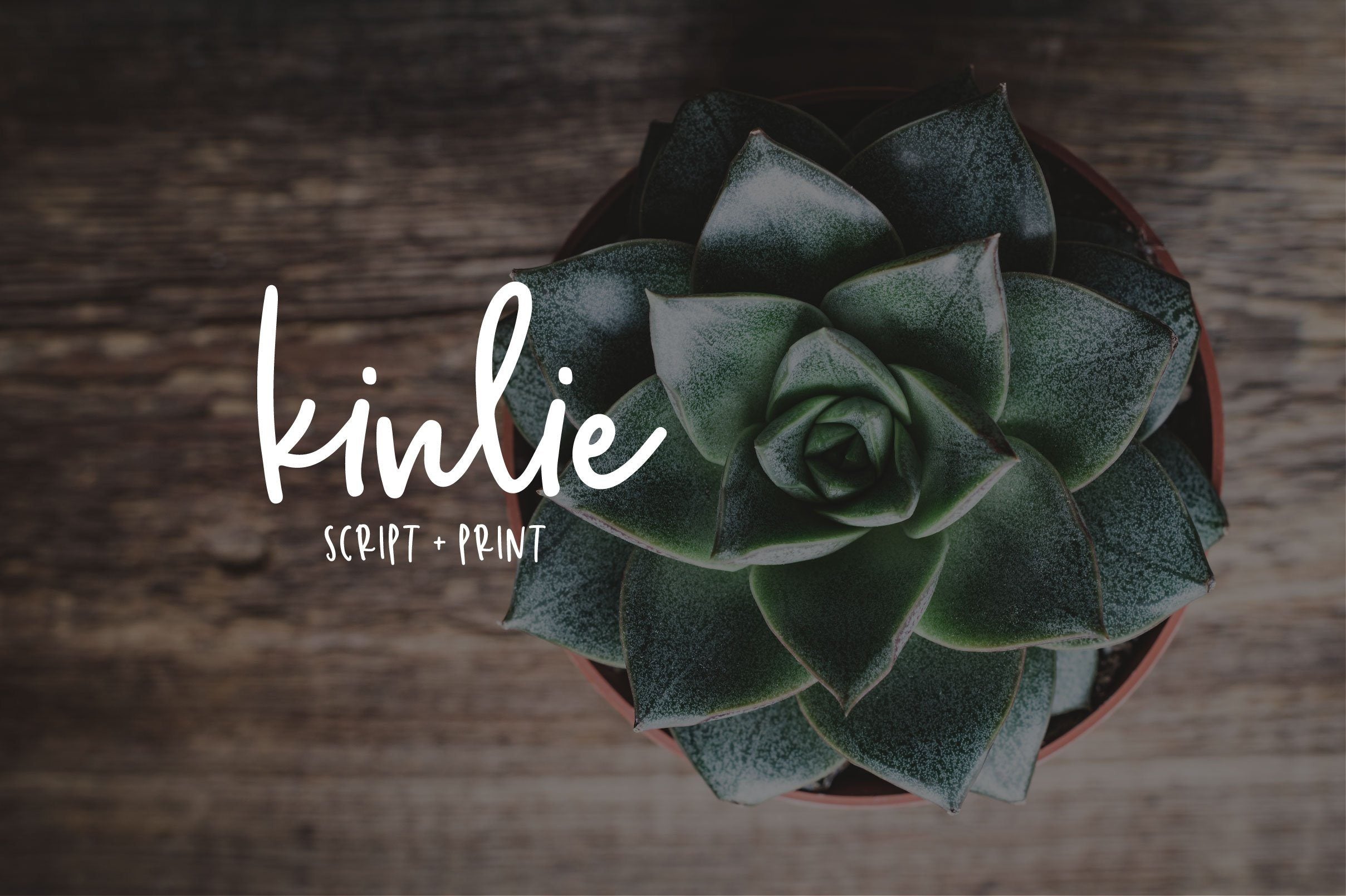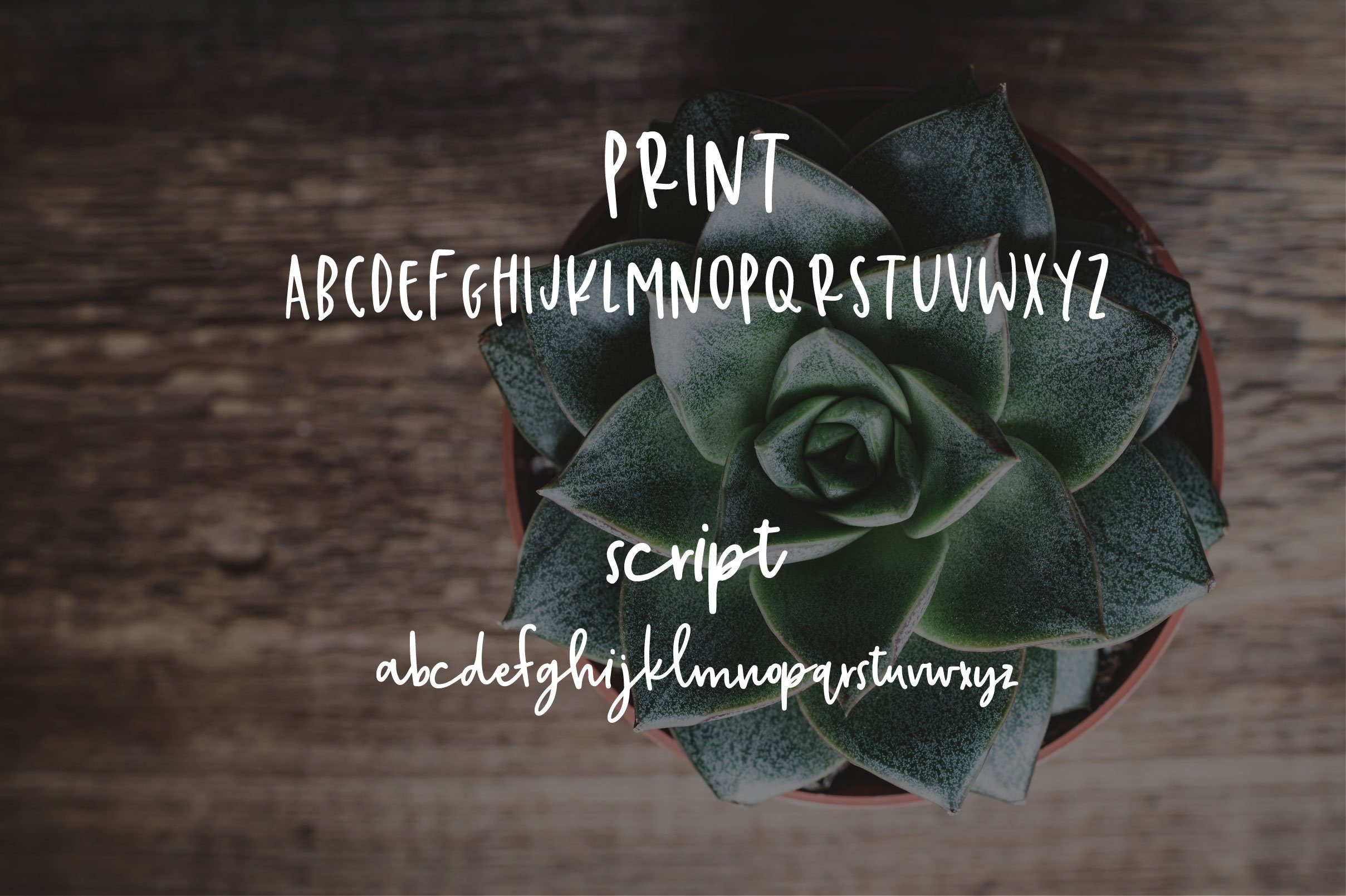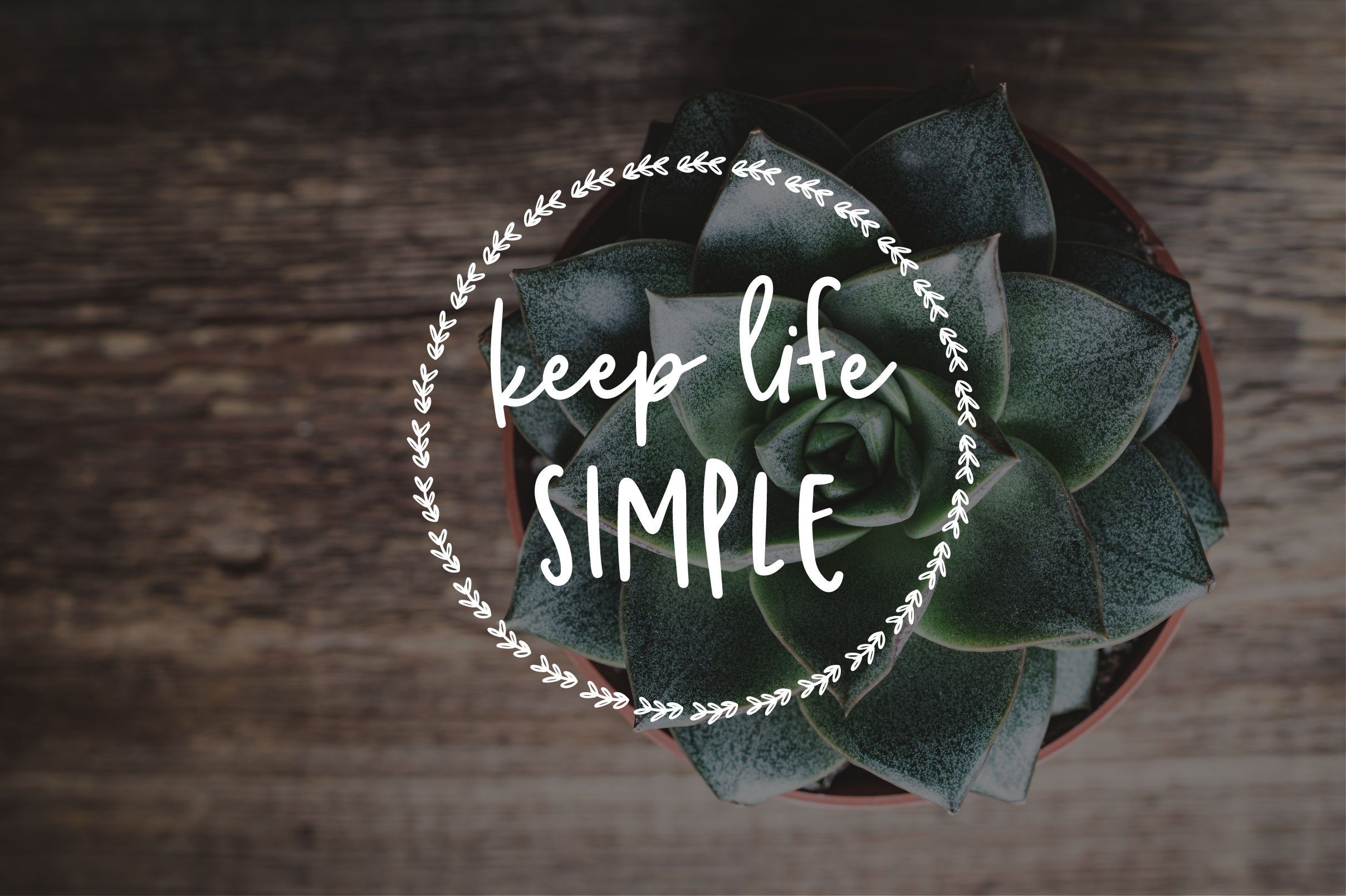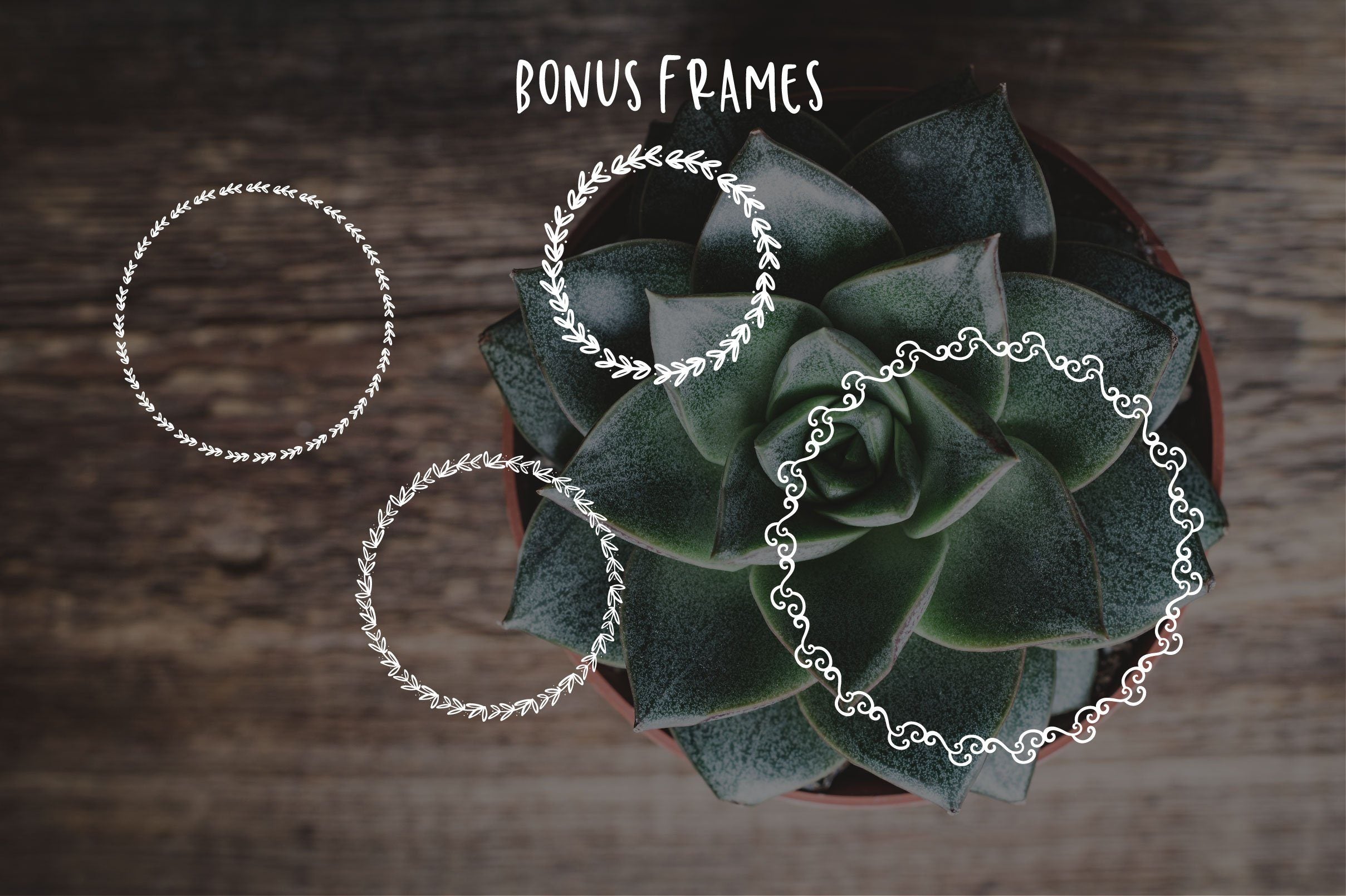
HomeScript FontsKinlie Script Fonts Kinlie FacebookXPinterestWhatsApp 1 of 4 ... ... ... ... About Kinlie Kinlie is a simple script with a relaxed vibe. The uppercase letters create their own style as well when used together. Includes 4 hand drawn frames to accent your designs! DOWNLOAD NOW People also explored Cruz Script Ballpoint Pro Campus Holiday Font Stevanie Font Historis Script Font Higmospher Font Silence Font Andershon Magnolia Font Razor Font Home Plants Font 228 0 TagsKinlie Previous articleThe So Fontsy Free Font: So Fontsy ExclusiveNext articleOaker LEAVE A REPLY Cancel reply Comment: Please enter your comment! Name:* Please enter your name here Email:* You have entered an incorrect email address! Please enter your email address here Website: Save my name, email, and website in this browser for the next time I comment. Personal Use Free Gunplay Personal Use Free Read more about this font Masha Song Personal Use Free Read more about this font Mounets Personal Use Free Read more about this font Shelly Personal Use Free Read more about this font BLOG How to Cut Any Font on Cricut: Convert a Font to SVG (Free) Turn any font into a clean SVG so it cuts crisp on Cricut - a quick 3-step workflow using a free font-to-SVG tool. Top 7 Google Fonts Alternatives for Faster and Privacy-Friendly Web Design (2025) Transform Your Website: Elevate Your Typography with 7 Best Web Font Generators Exploring Font Trends